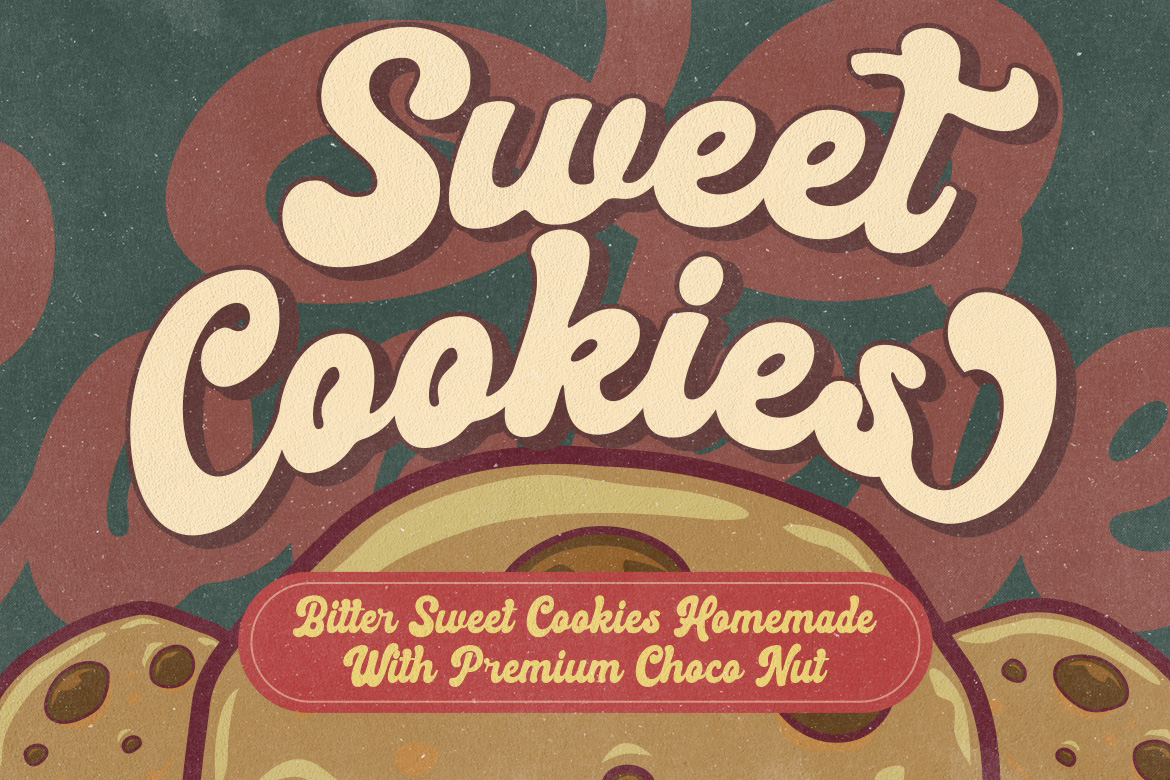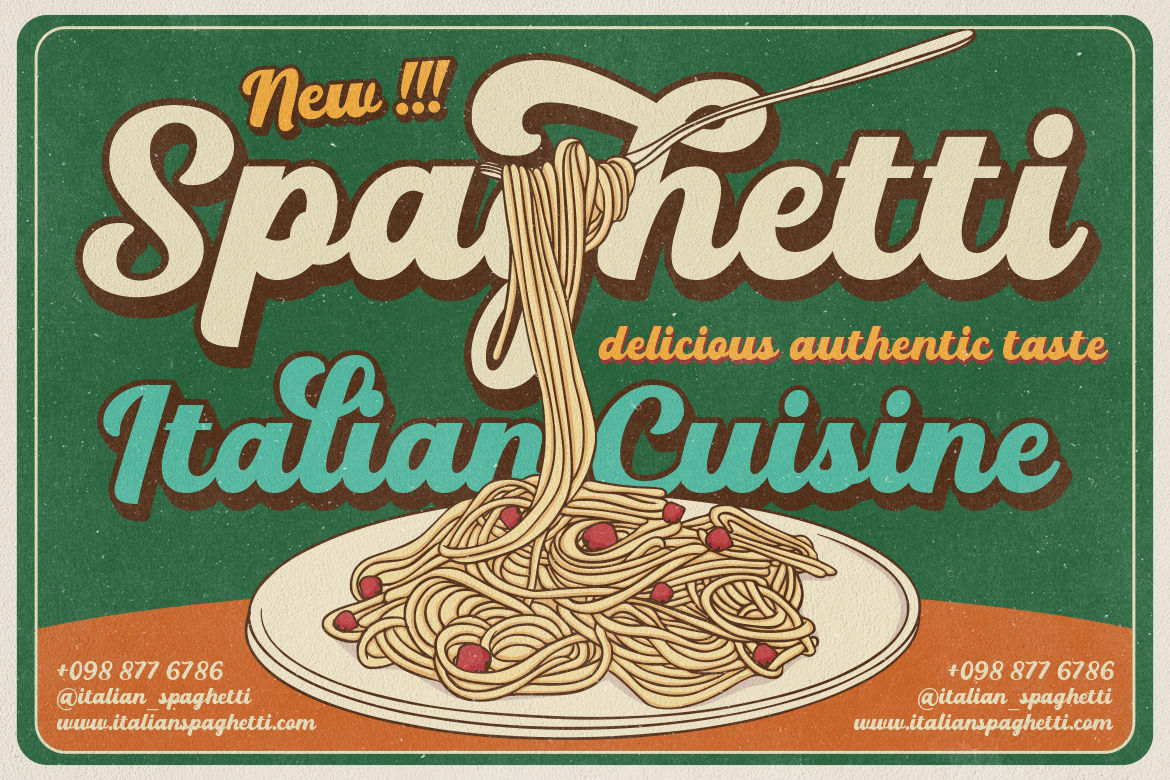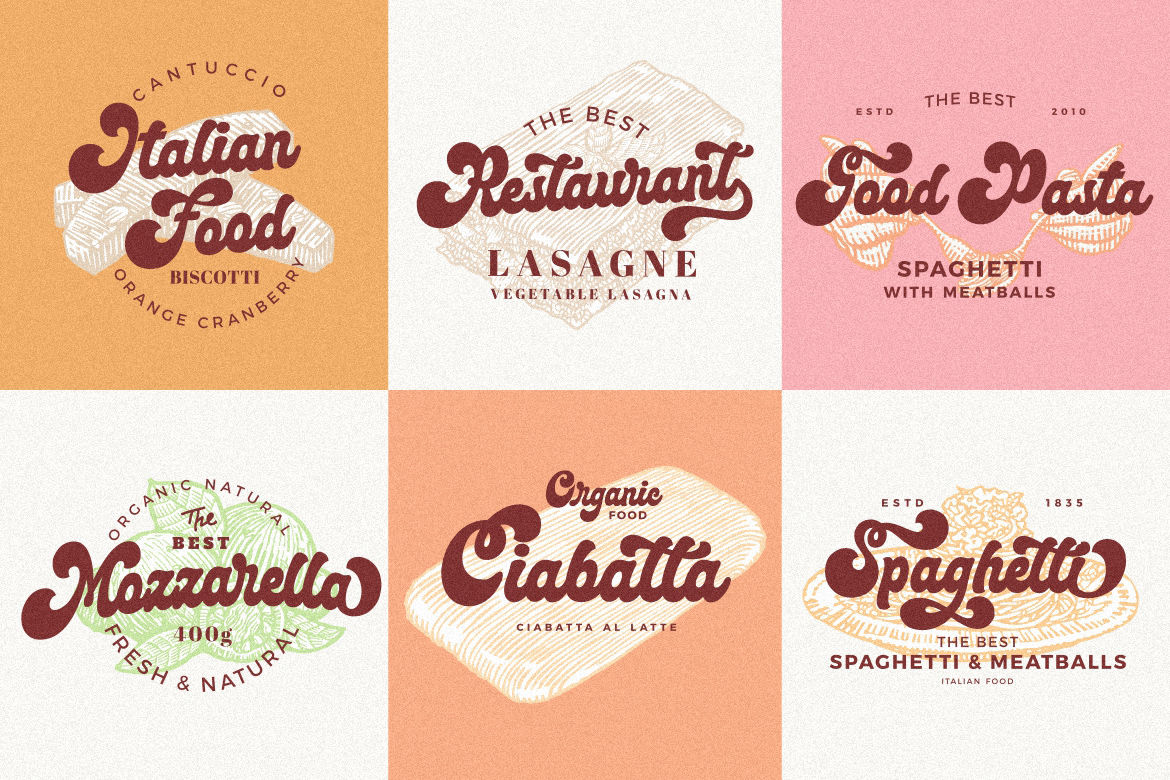
Vintage Script Font for Timeless Trend!
Vintage script fonts offer a unique charm and expressive design, making it a timeless trend that can match with modern graphics well. The visual suggests handcrafted aesthetic with elegant letterforms, many refer to them as luxurious typefaces.
But, considering the intricate characteristics, many designers are conflicted on how to style the font effectively without leaving out its charm and elegance. If you currently feel so, this article will be your guide to create distinctive design using timeless vintage script typeface.
Why Did Vintage Script Font Become a Timeless Trend?
Vintage Mordis 3
This font has uniqueness that contemporary typography often lacks. Though the style is not especially advanced, it still remains trendy and popular in today’s digital design landscapes. The following section explains why it being a timeless trend:
⦁ Nostalgia Marketing
Vintage fonts draw emotional connection to the past, bringing positive memories that younger generations often seek for in a design. The style often referencing old designs from the 20s to 70s and sometimes also refers to the historical eras.
Brands utilize it to create nostalgia marketing by combining those fonts with other retro elements. For example, brands may use vintage themed logos for their products to evoke nostalgic memories and trigger the audience to think of the good old days.
⦁ Distinct Personality
These fonts have distinct characteristics from generic modern typefaces, like serif and comic sans. They can create a stand out uniqueness, elevating your designs to be distinctive from others.
⦁ Classic but Contemporary
Although vintage script fonts resemble classic vibes, they frequently have a slight twist and combination with modern details. It makes the visual remain stylish and flexible to pair with contemporary designs.
⦁ Versatility & Adaptability
Another reason why this font has become a timeless trend is the versatility and adaptability. They are greatly matched for multiple industries, including F&B, fashion, media, and events.
It is also adaptable for different types of moods. With soft color palettes, it can give romantic feels, and with bright color palettes, you can transform them into fun and playful vibes.
⦁ Unique & Elegant
The handwritten style of vintage fonts is always associated with elegance and uniqueness. This adds sophistication to the designs, so people often use it in weddings or handcrafted products’ branding.
Design Tips for Styling Vintage Script Font
Hadenut Preview 2
Styling vintage fonts for creating visually appealing designs begin with some essential steps. It involves balancing and pairing them with elements without overdoing it. Let’s check these following tips for guidance!
⦁ Don’t Overuse on Body Texts
Avoid using script font on body texts because it can reduce the readability. This font may look luxurious and elegant, but when it’s overused in a long paragraph, audiences will be unable to read them in whole.
Preferably, this font is better to use in titles or headlines to evoke attention. It will also look great when used in packaging or logos, leaving an impactful and bold impression for the brand.
⦁ Use for Short Phrases
Instead of using it to create longer texts, vintage fonts are recommended to use for short phrases, such as tag lines and slogans. It will emphasize strong identity and define brands’ personality.
⦁ Consider Eligibility
Each of the vintage script fonts have different decorative accents, meaning they may convey distinct messages. So, select one that is relevant to your design purpose. Don’t just choose fonts just because you think it looks great.
Consider using flowing script for romantic vibes, font with thicker letterforms for retro designs, and brush script for handmade products.
⦁ Balance with Minimalists Fonts
To maintain readability, it is suggested to balance vintage fonts with minimalist ones. Serif fonts can be a good pairing to begin with. You can use them for subtitles or body texts to complement the contrast.
⦁ Apply Negative Space
Mostly, script fonts are characterized by its tight space. At times, it can appear too cluttered and crowded in a small design, reducing its legibility from a distance. For effective application, you can add negative spaces or empty areas to keep them balanced.
⦁ Pair with Subdued Color Palettes
Vintage script font basically already have decorative accents and strokes. Using bold color palettes will only make the whole design overboard. As an alternative, you can choose subdued color palettes with a softer and less intense effect.
These color palettes include cream, brown, forest green, soft purple, and so on. Unlike bold color, they are more likely associated with peace, stability, and earthy feels. It will help your brand message stay clear and elevate brand identity.